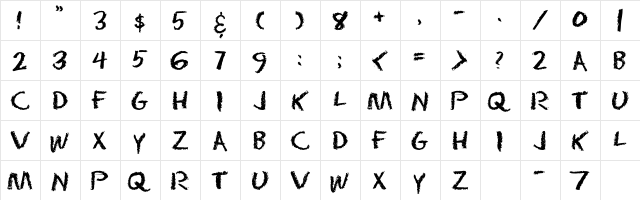
DS EraserTwoC Regular
Design Context for DS EraserTwoC Typeface
DS EraserTwoC is a composed and adaptable typeface that performs quietly and consistently across a wide range of design contexts.